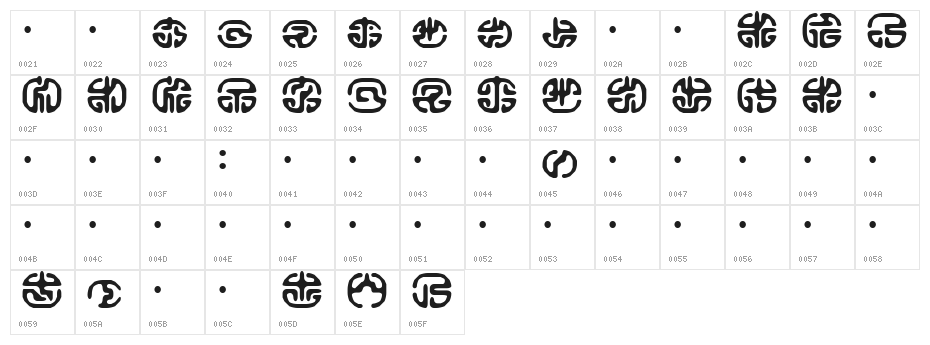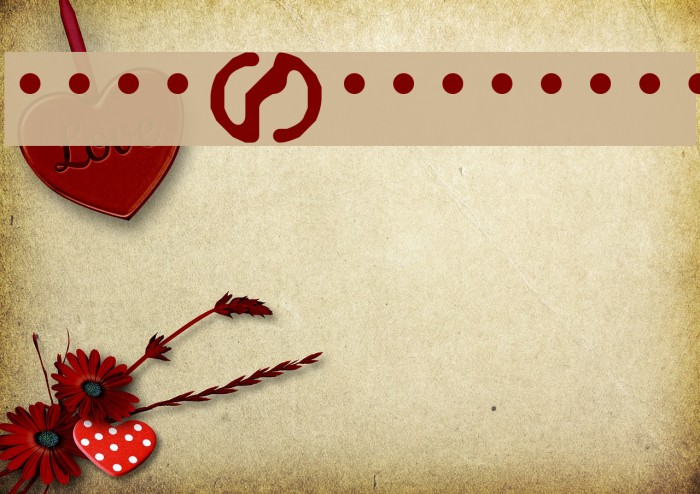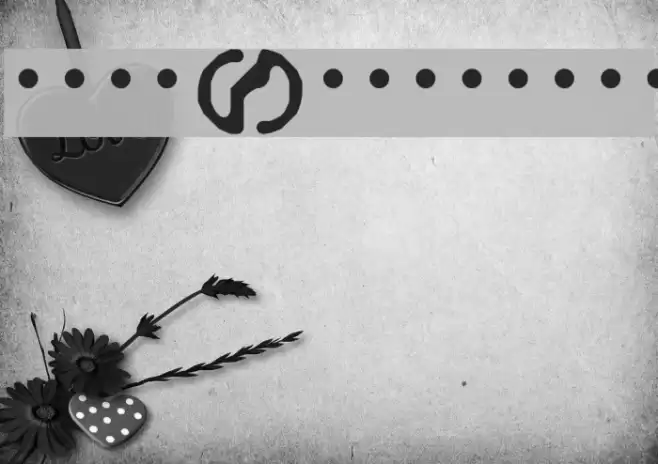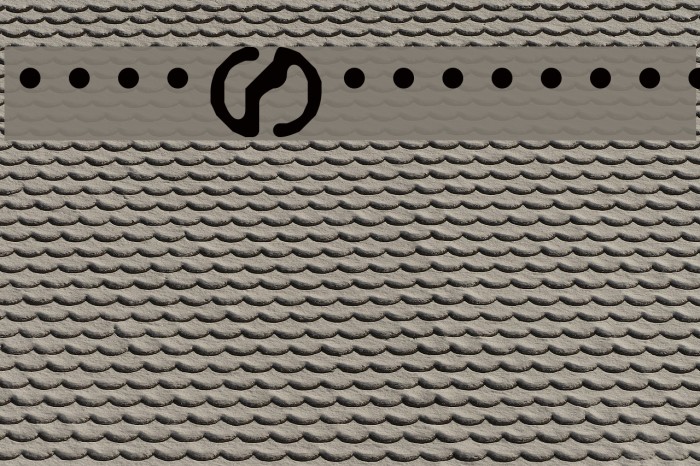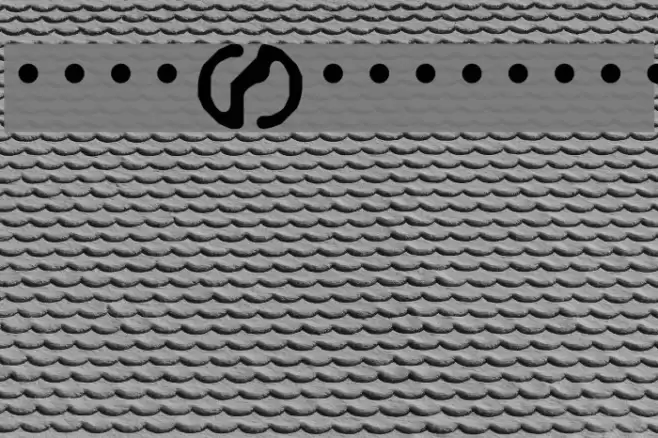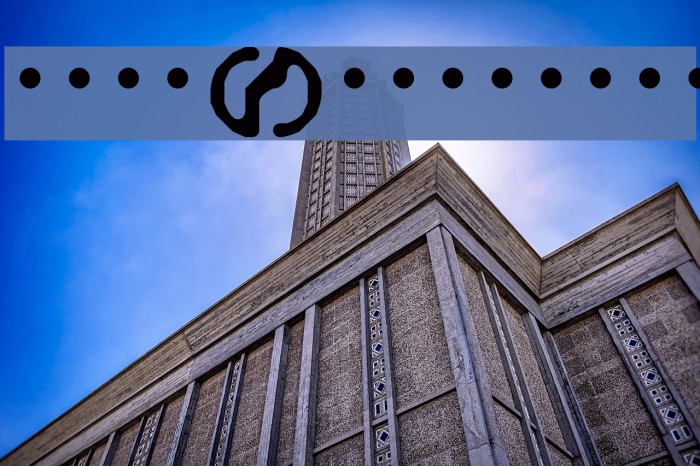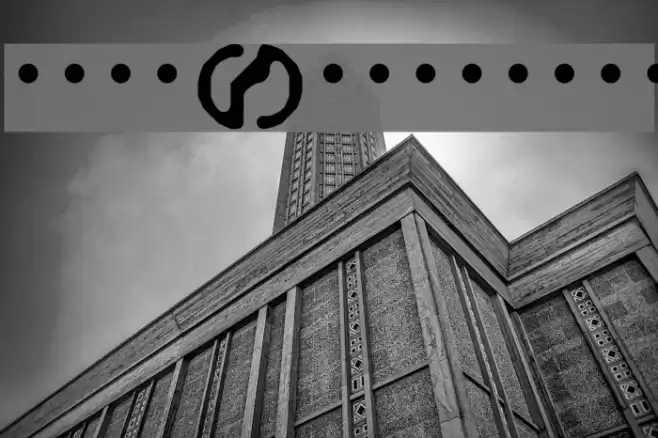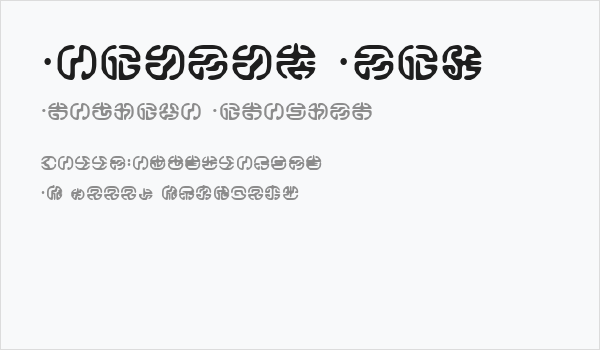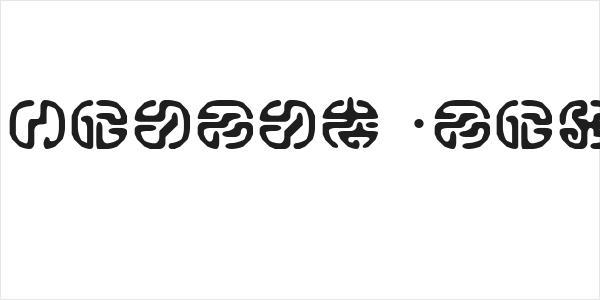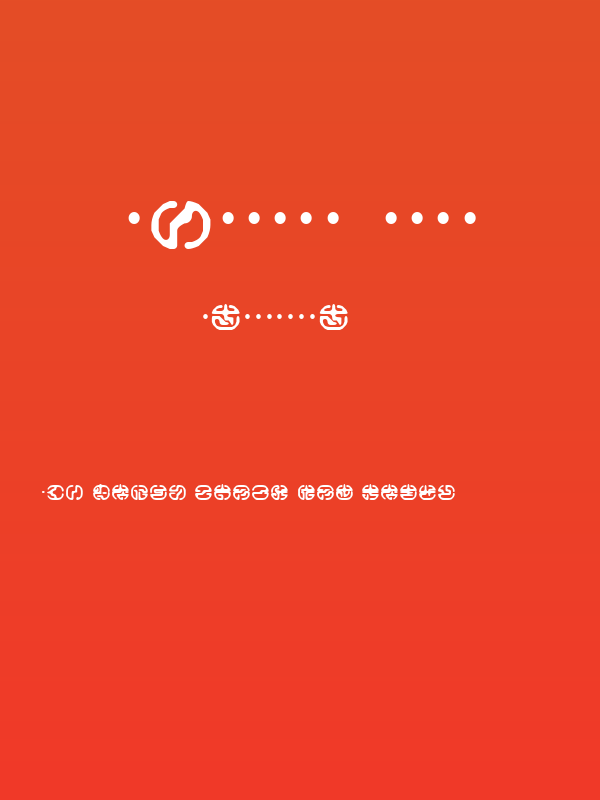
Keikoku Koin Font
Keikoku Koin Description
This design features a highly decorative and abstract style, characterized by intricate, interconnected shapes that resemble ancient symbols or scripts. The characters are bold and have a unique, artistic flair, making them stand out with their complex curves and loops. The overall appearance is reminiscent of calligraphic or hieroglyphic art, with each character forming a distinct, enclosed pattern. The font's aesthetic is both mysterious and captivating, ideal for projects that require a touch of the exotic or the esoteric.
| Use Case | Logos, Artistic projects, Posters |
| Proposed Projects | Ideal for artistic projects, logos, or branding that seeks a unique and exotic appearance. Suitable for posters, album covers, or any design work that benefits from a mysterious or ancient script-like aesthetic. |